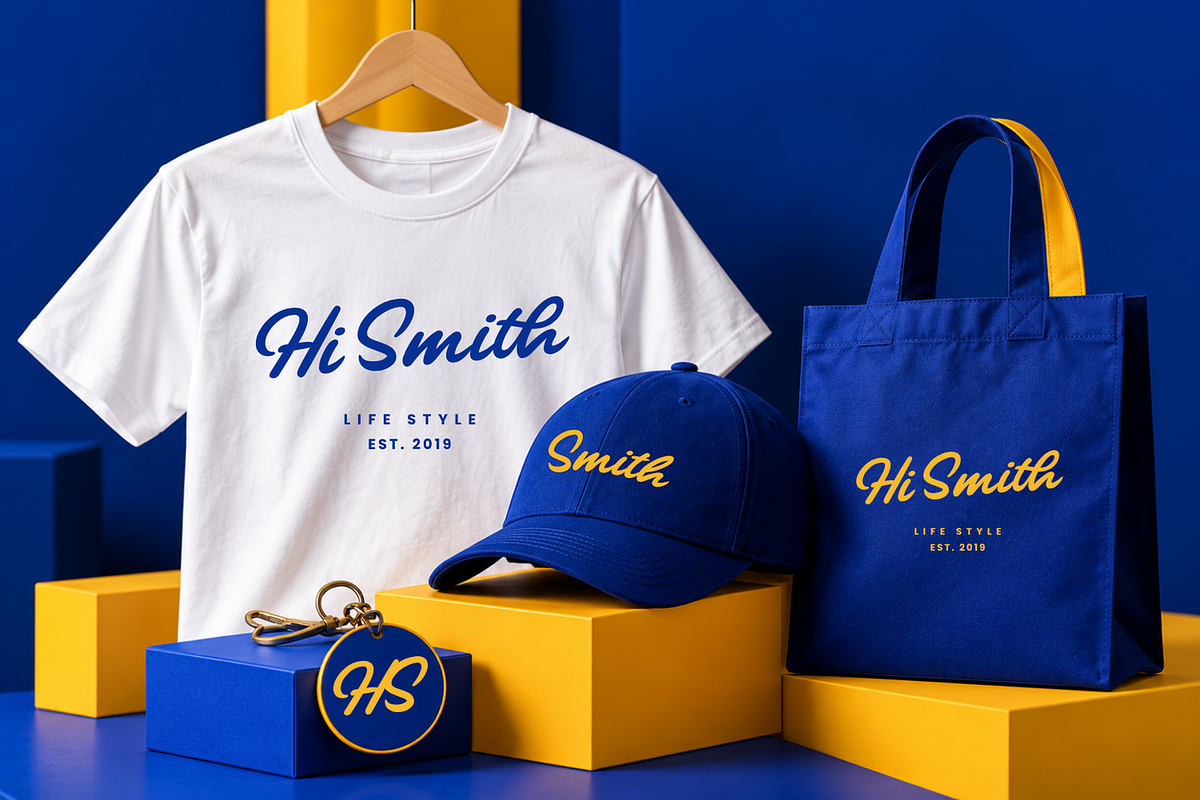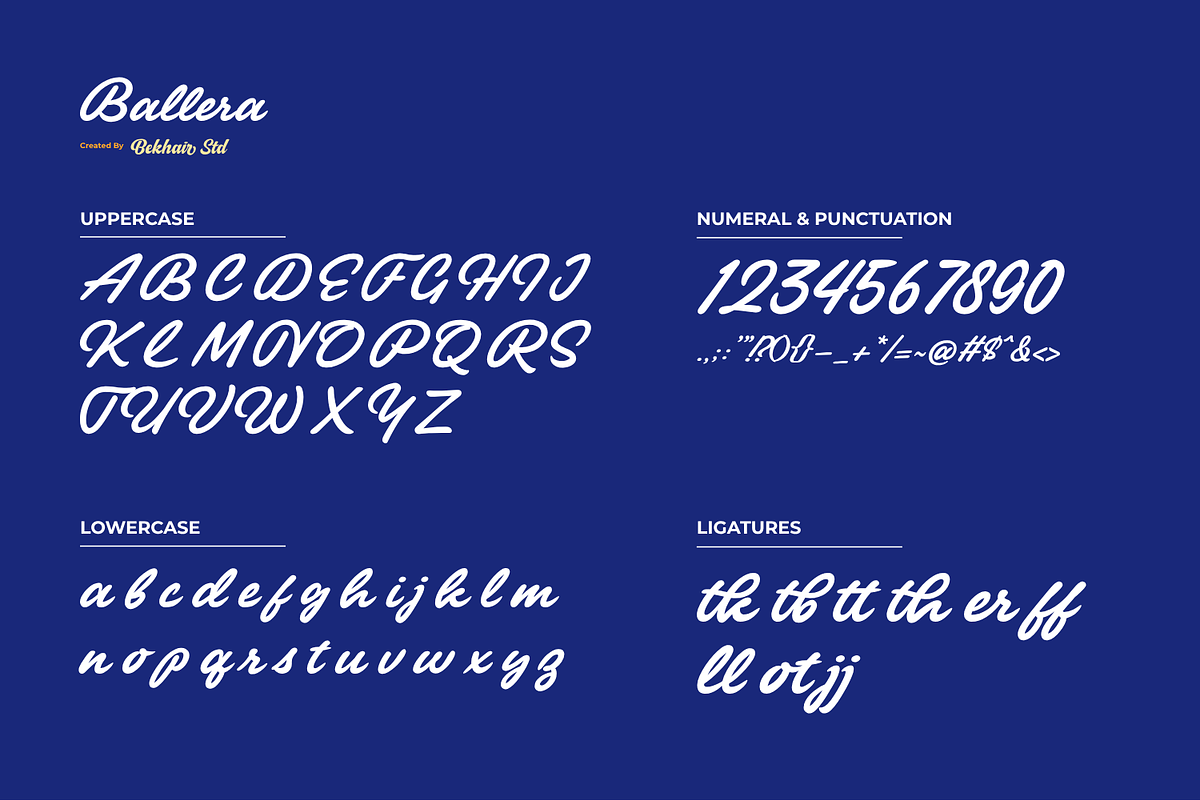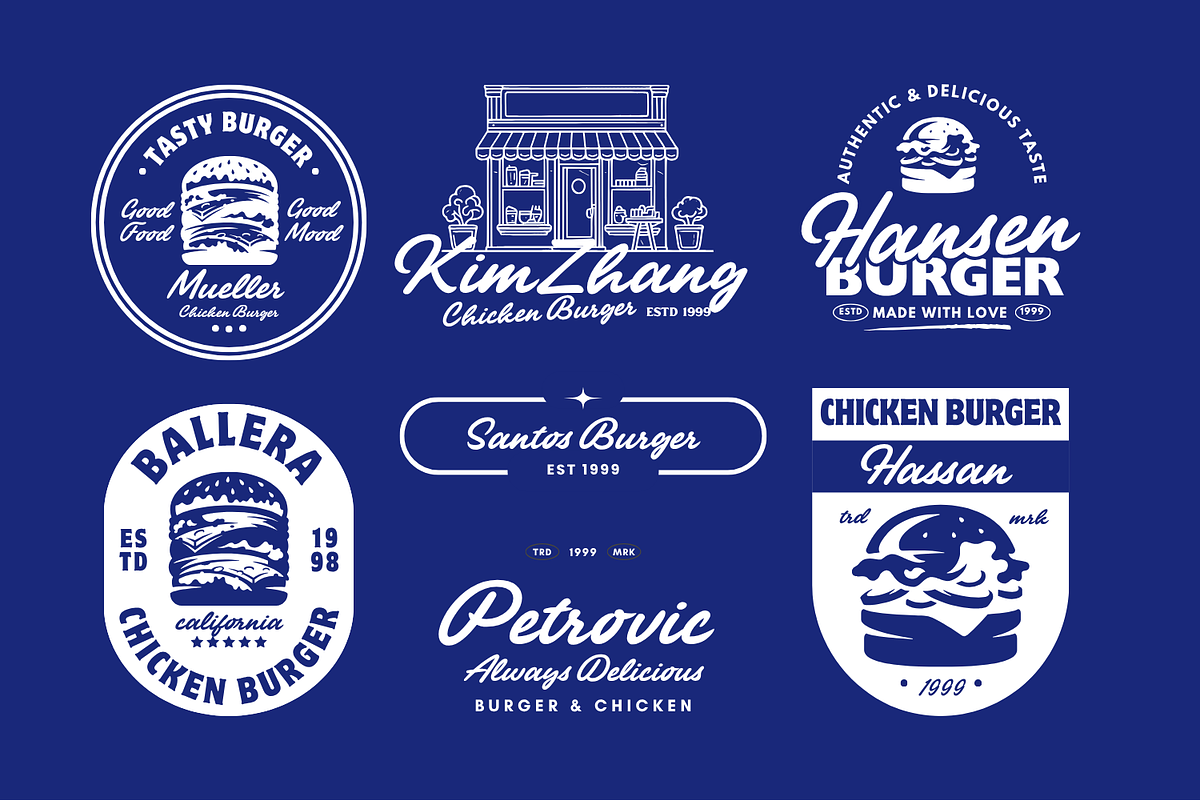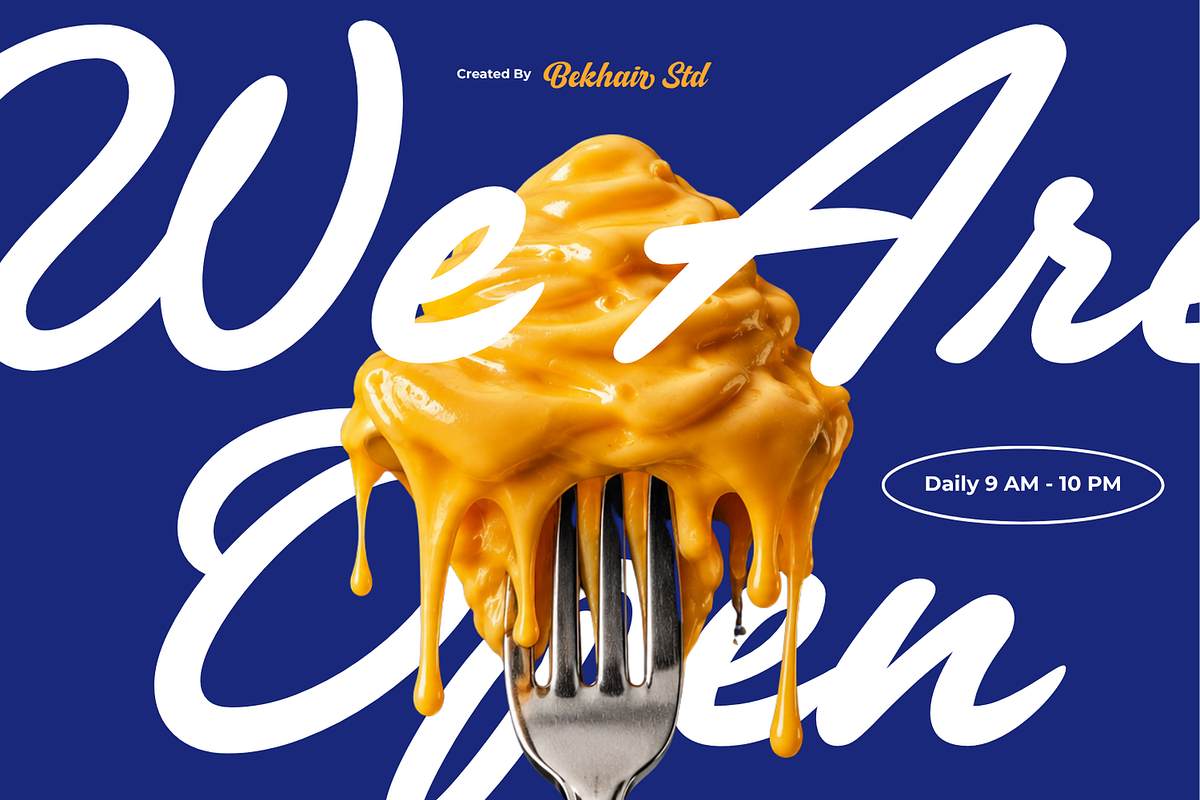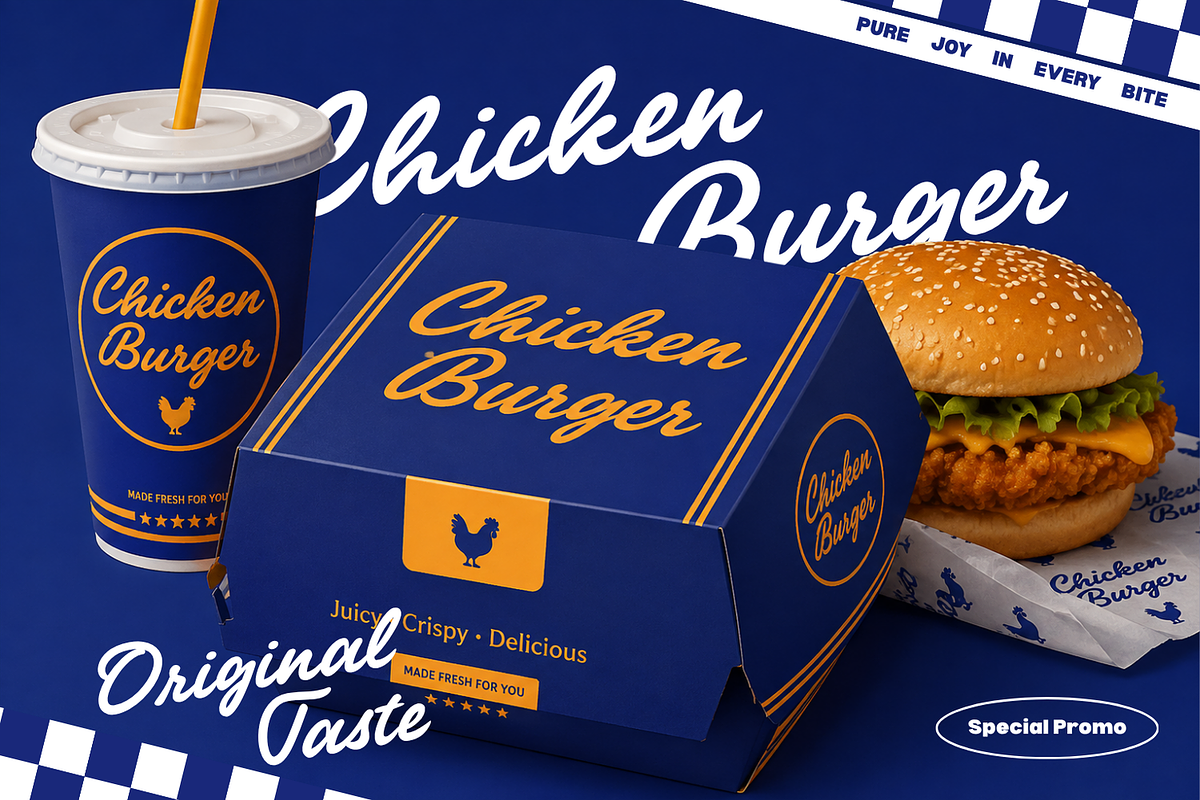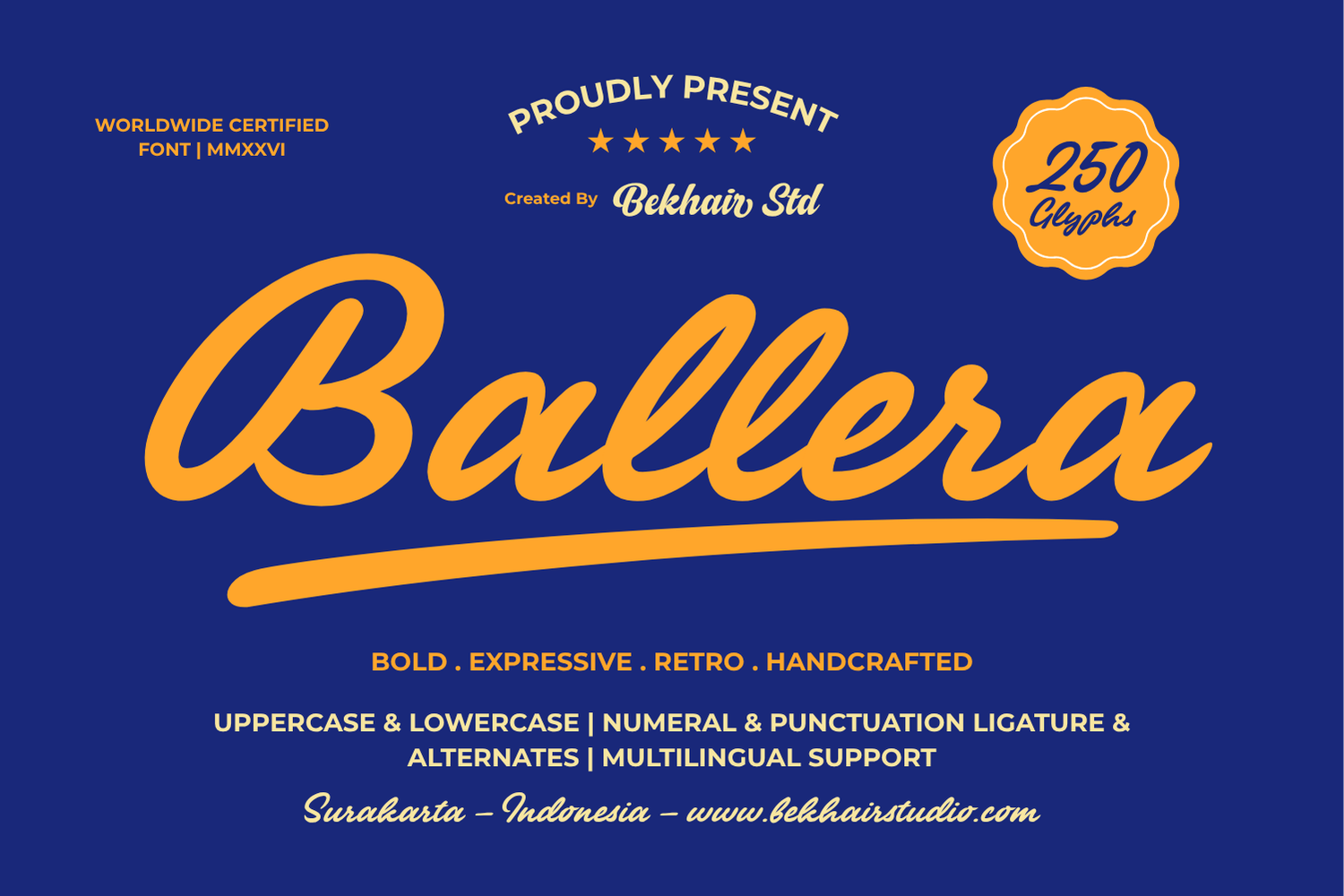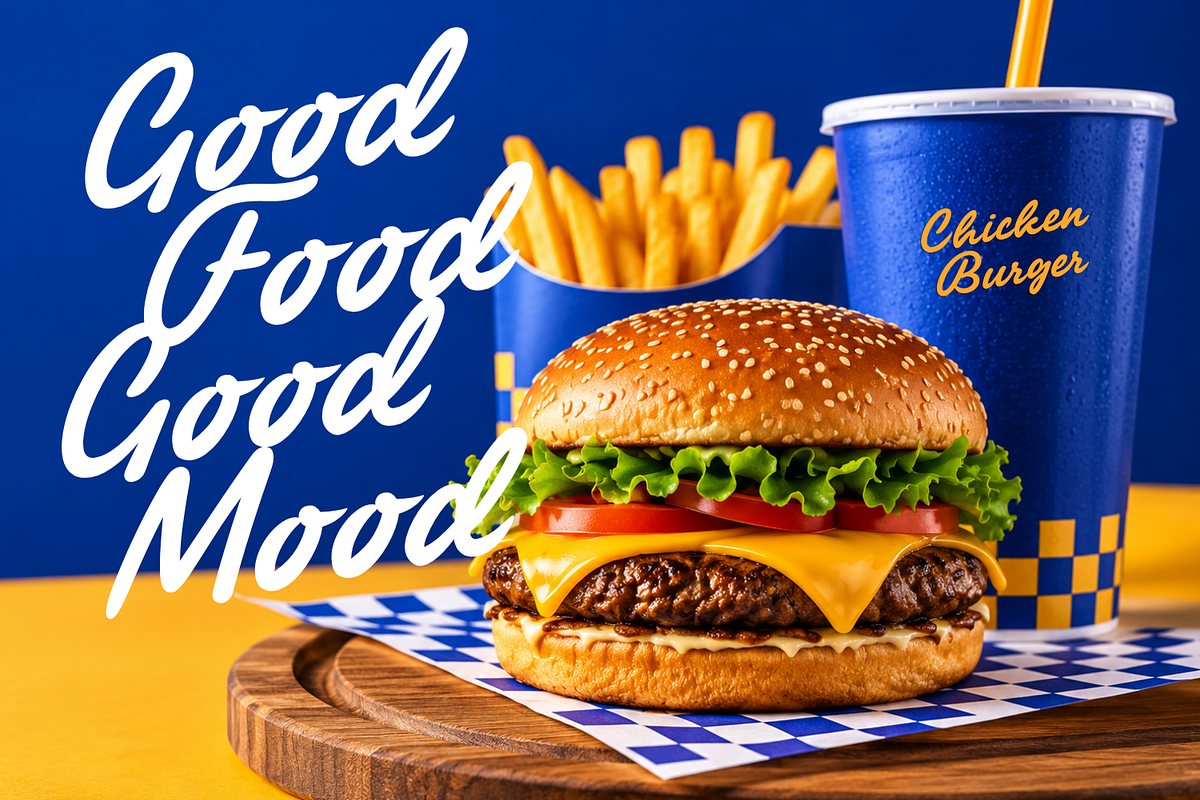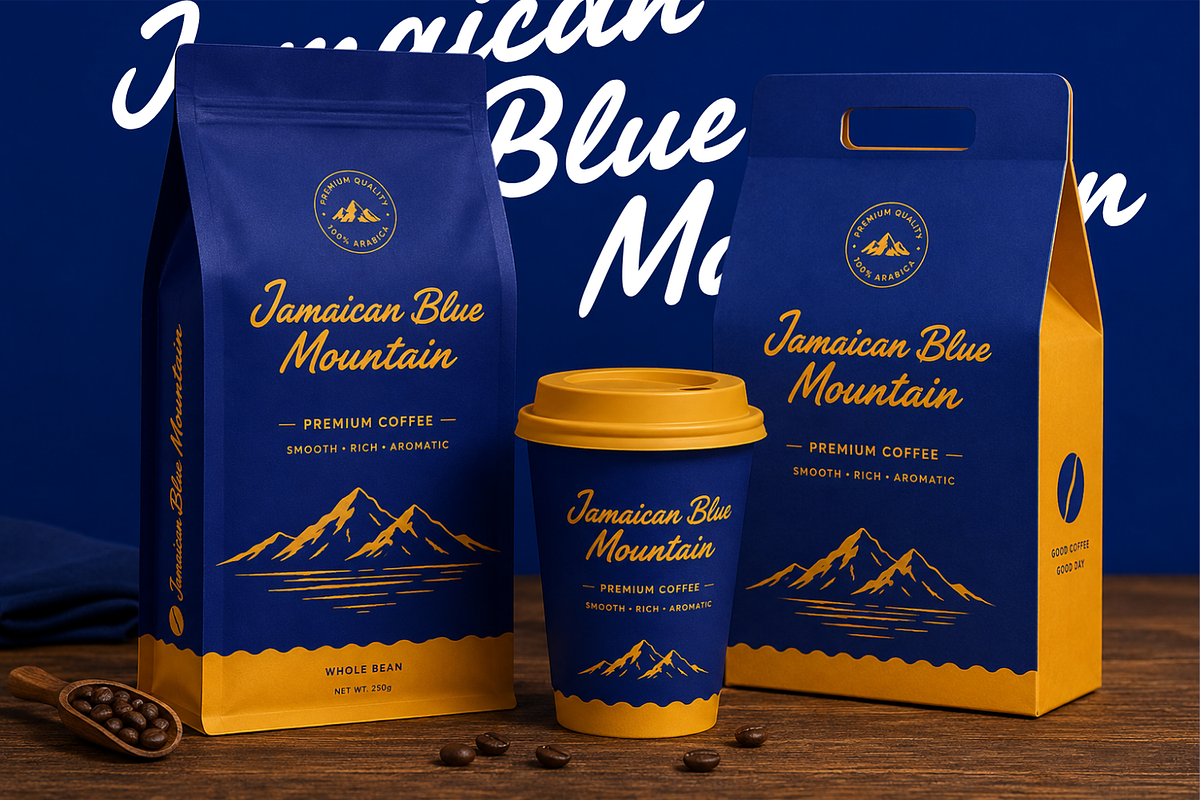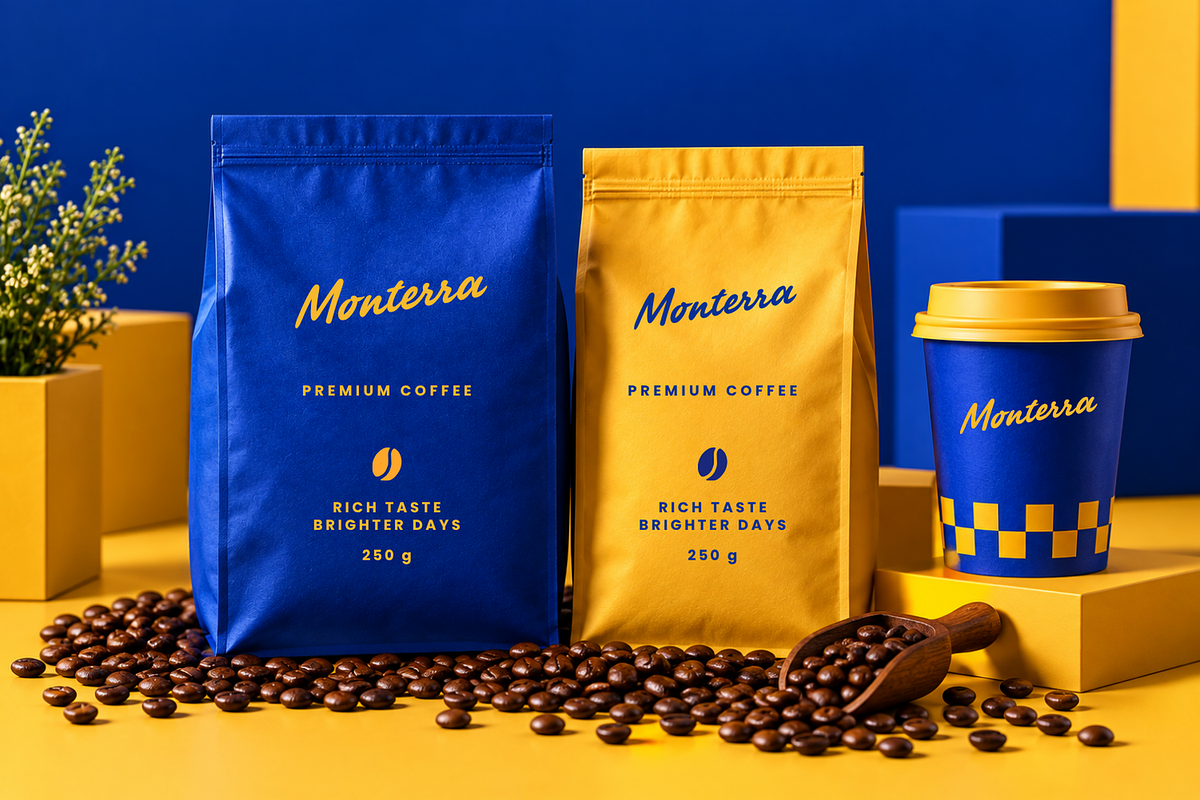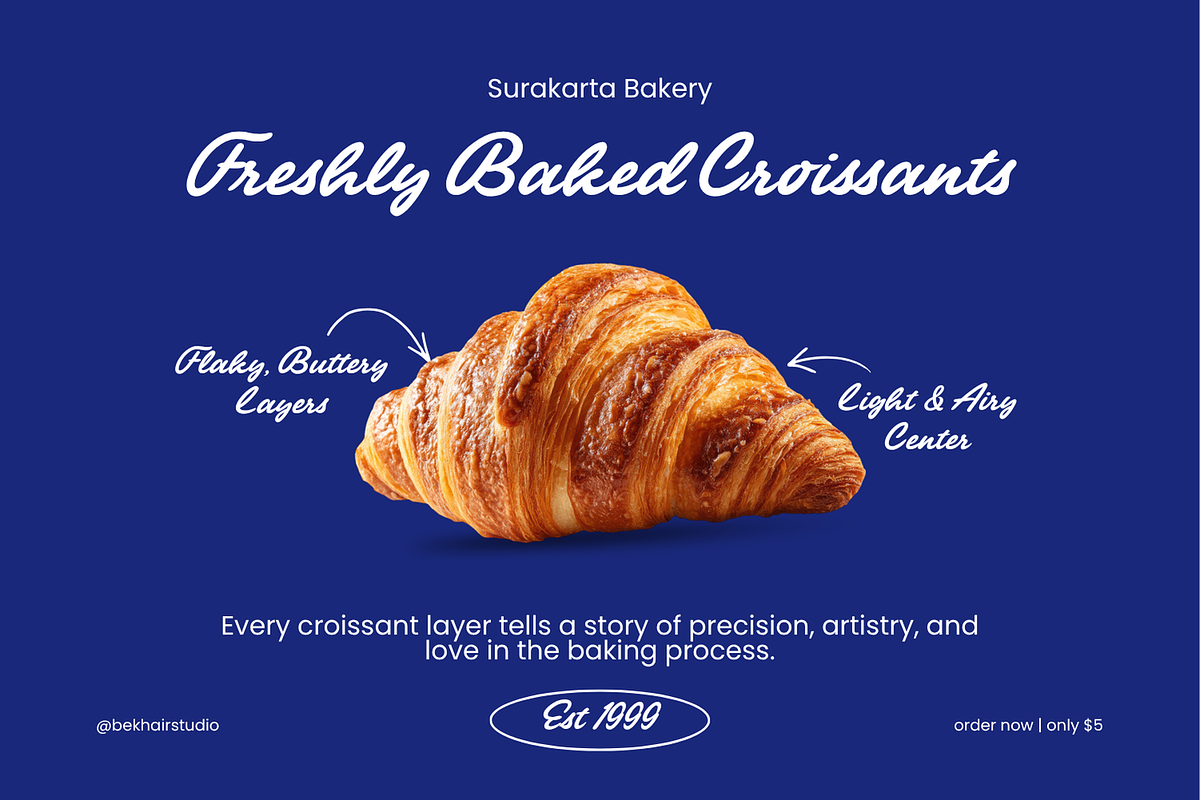
Ballera – Retro Handwritten Font
Ballera – Retro Handwritten Script Font is a bold, expressive script typeface designed to bring a handcrafted, energetic, and nostalgic personality to branding and display projects. Inspired by classic food, diner, and retro advertising aesthetics, Ballera combines flowing letterforms, dynamic strokes, and distinctive handwritten character for an authentic vintage feel.
The font is ideal for logo design, restaurant branding, food packaging, café identity, posters, menus, signage, apparel, merchandise, labels, stickers, social media graphics, and advertising materials. Its strong visual presence makes it especially effective for headlines, brand names, taglines, and short display text.
Ballera includes uppercase and lowercase characters, numerals, punctuation, multilingual support, ligatures, and alternate characters, providing additional flexibility for creating unique typography and customized brand identities.
Whether you're designing a burger restaurant, bakery, café, food truck, retro merchandise brand, or lifestyle project, Ballera helps create a memorable and professional visual identity with a warm handcrafted touch.